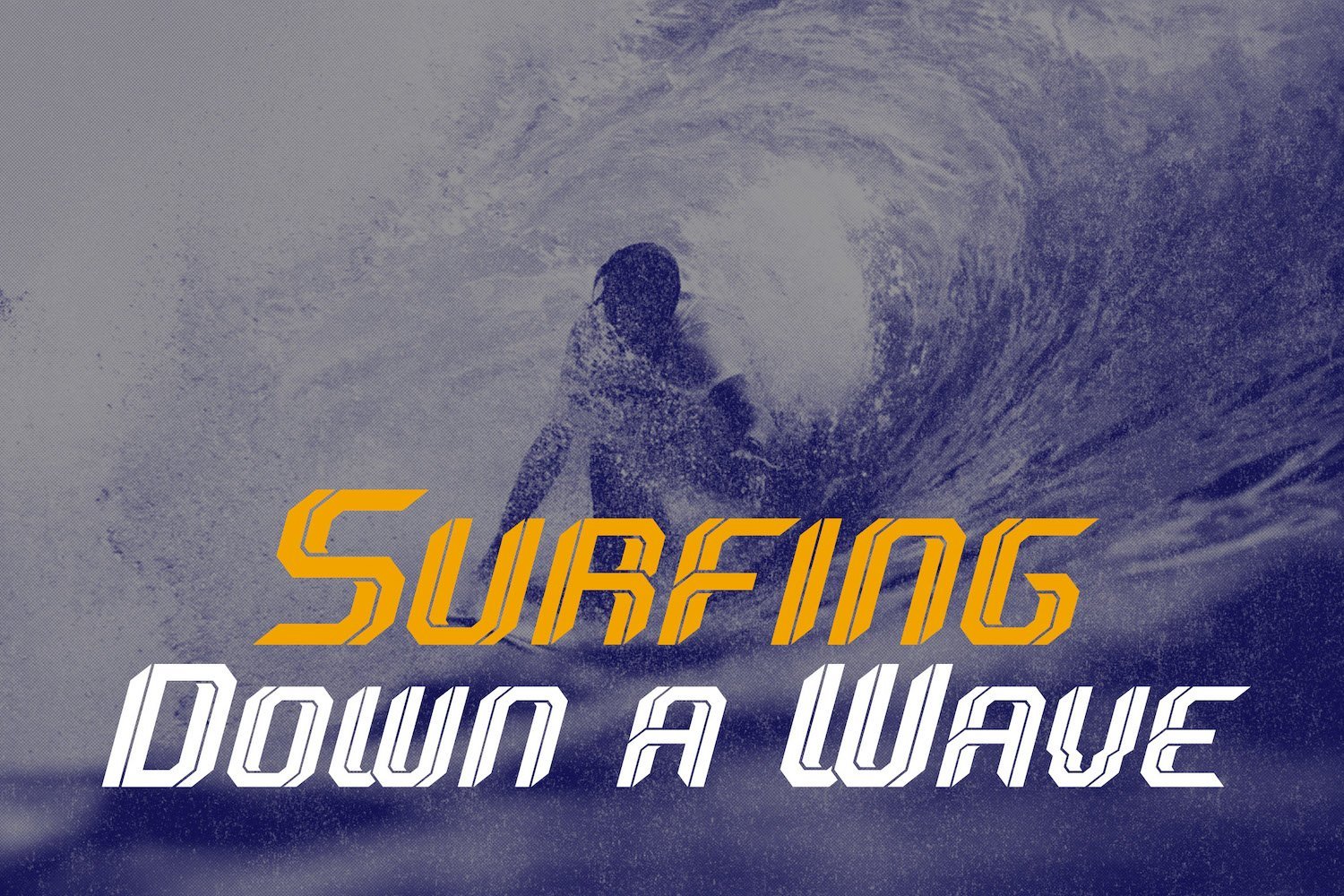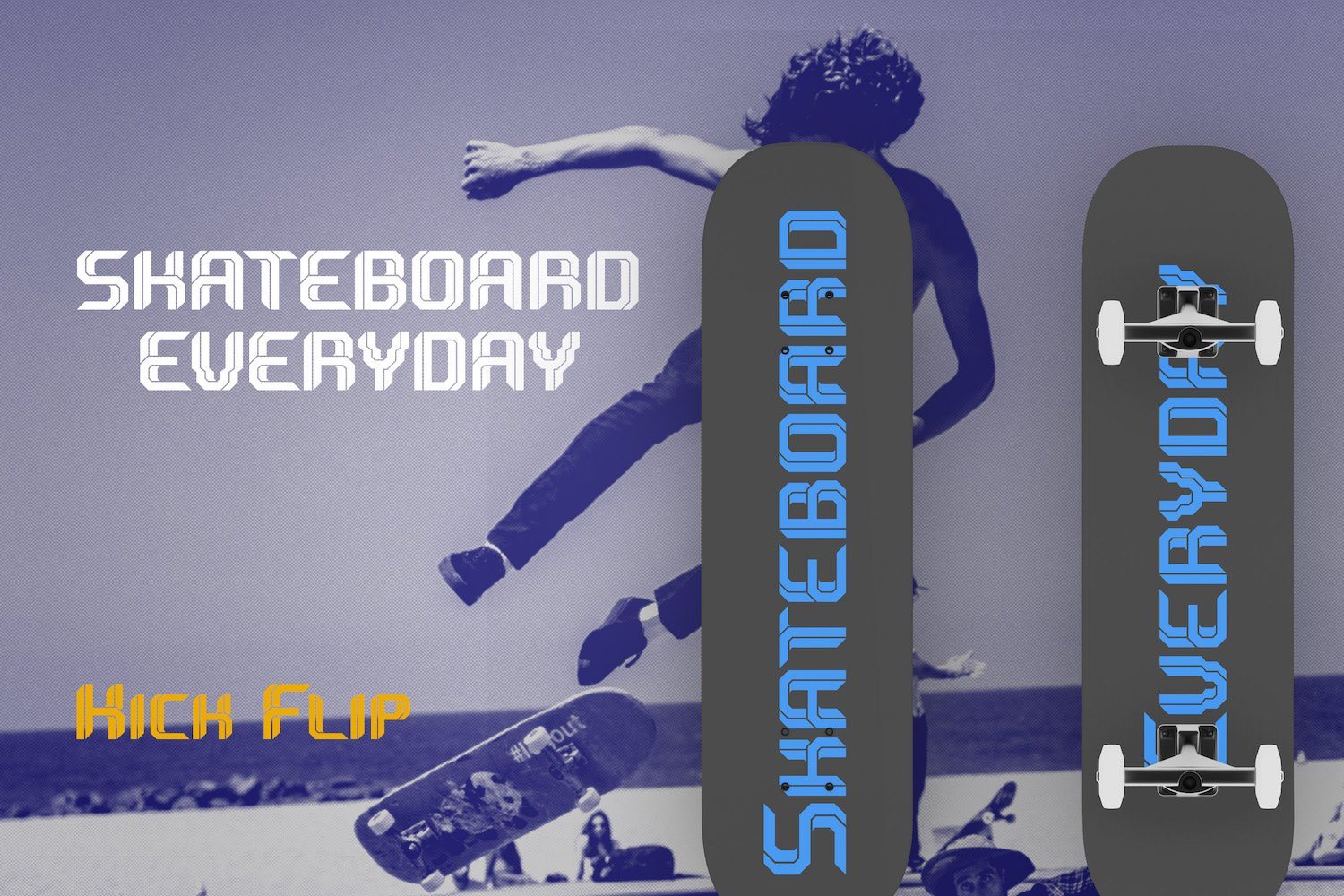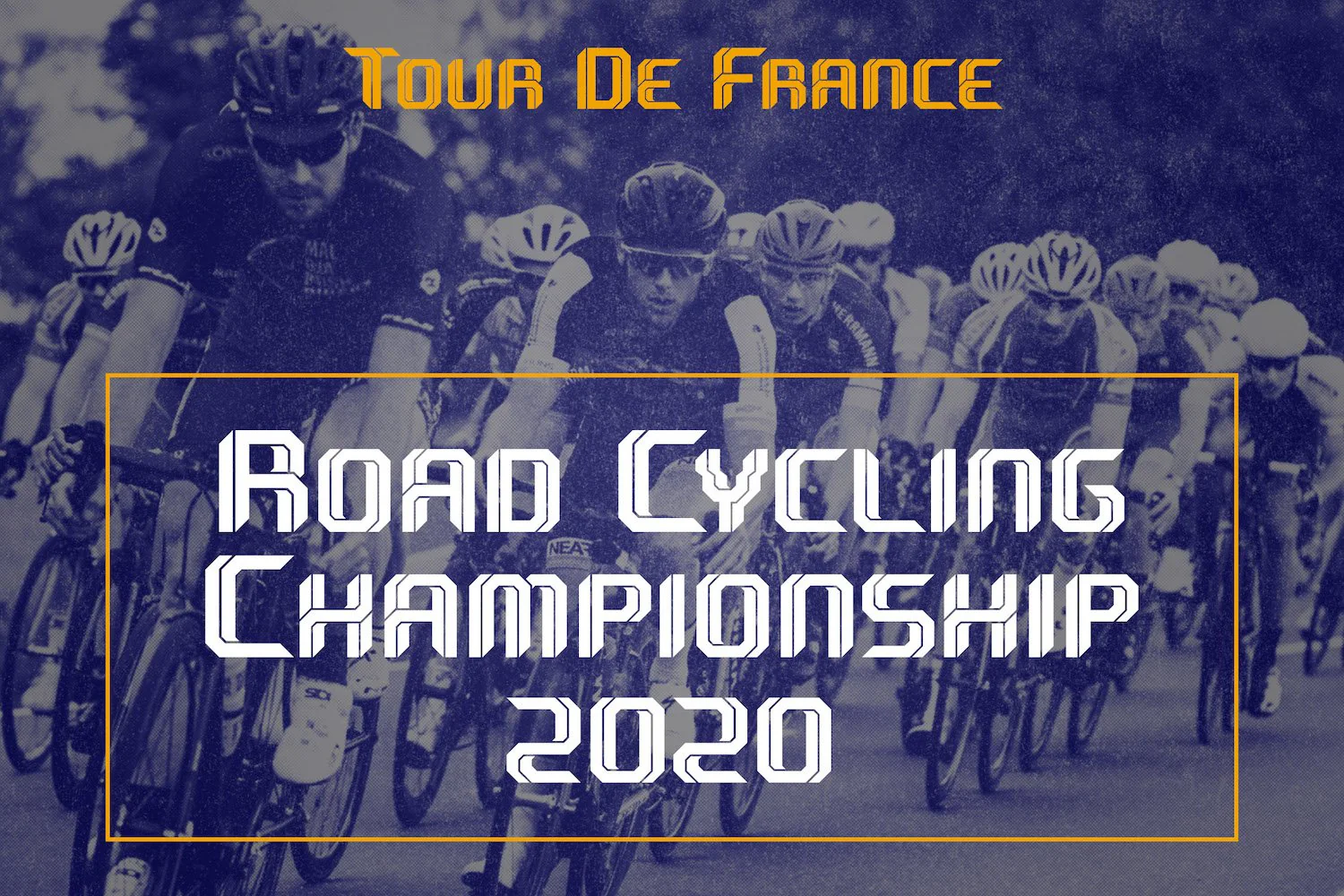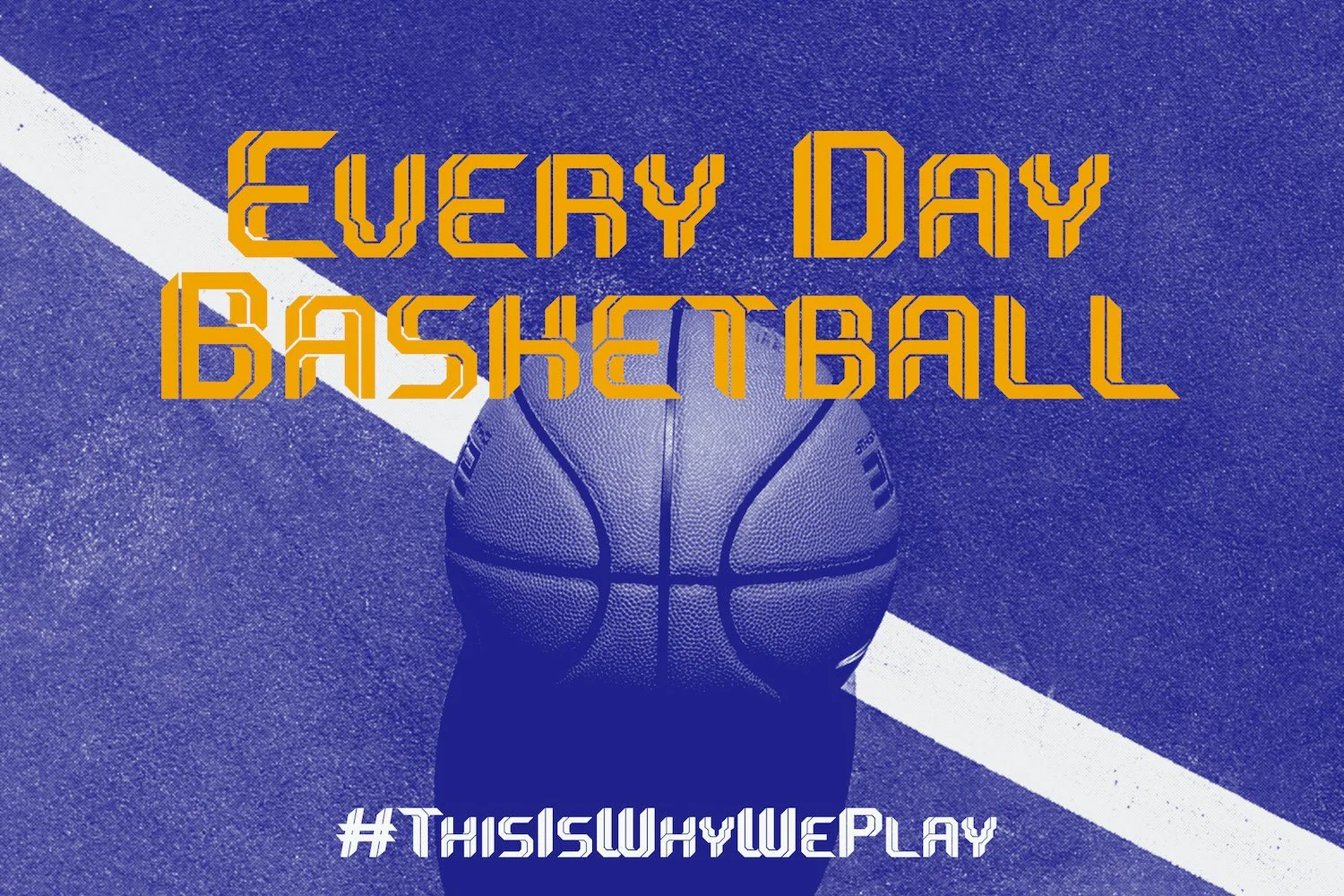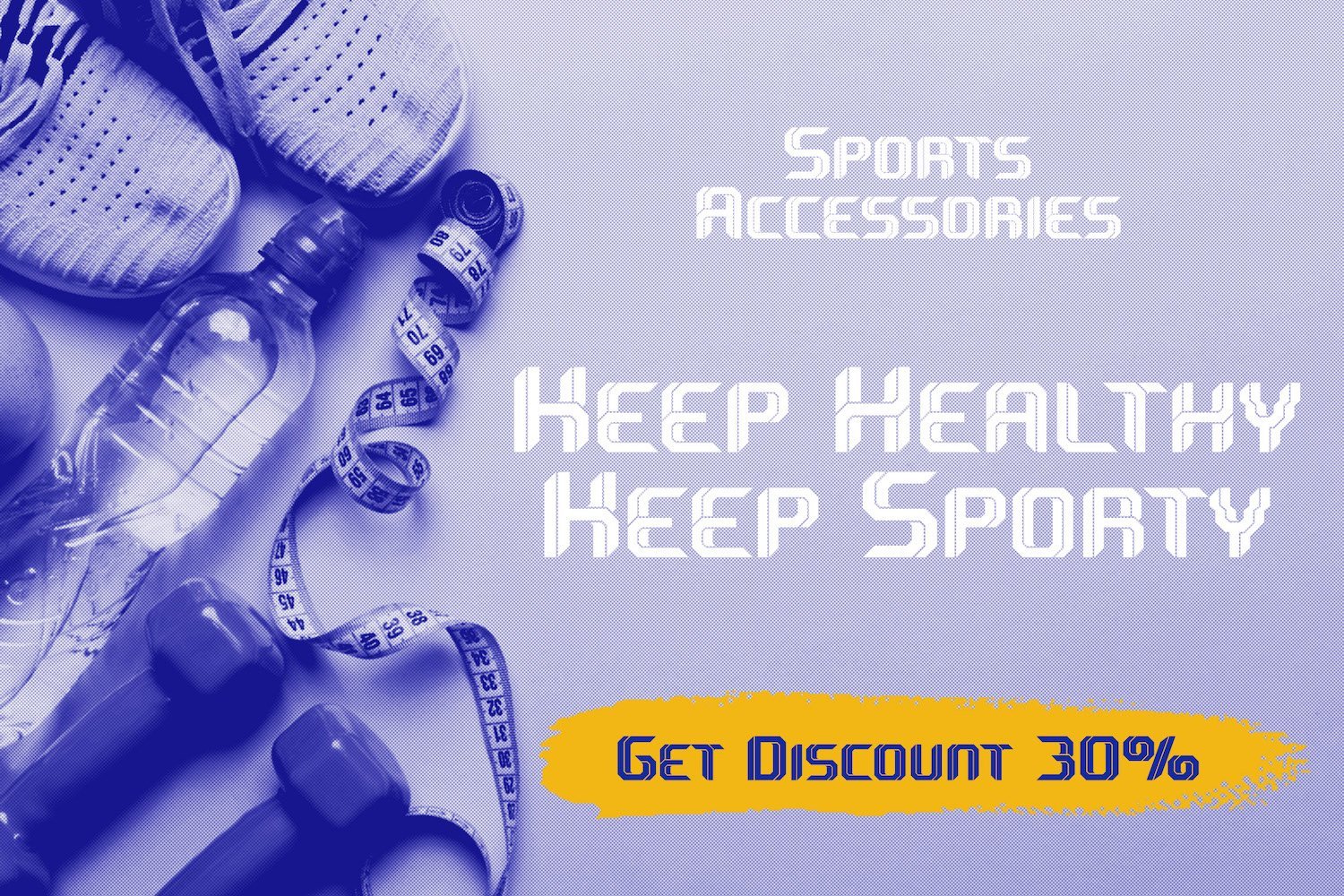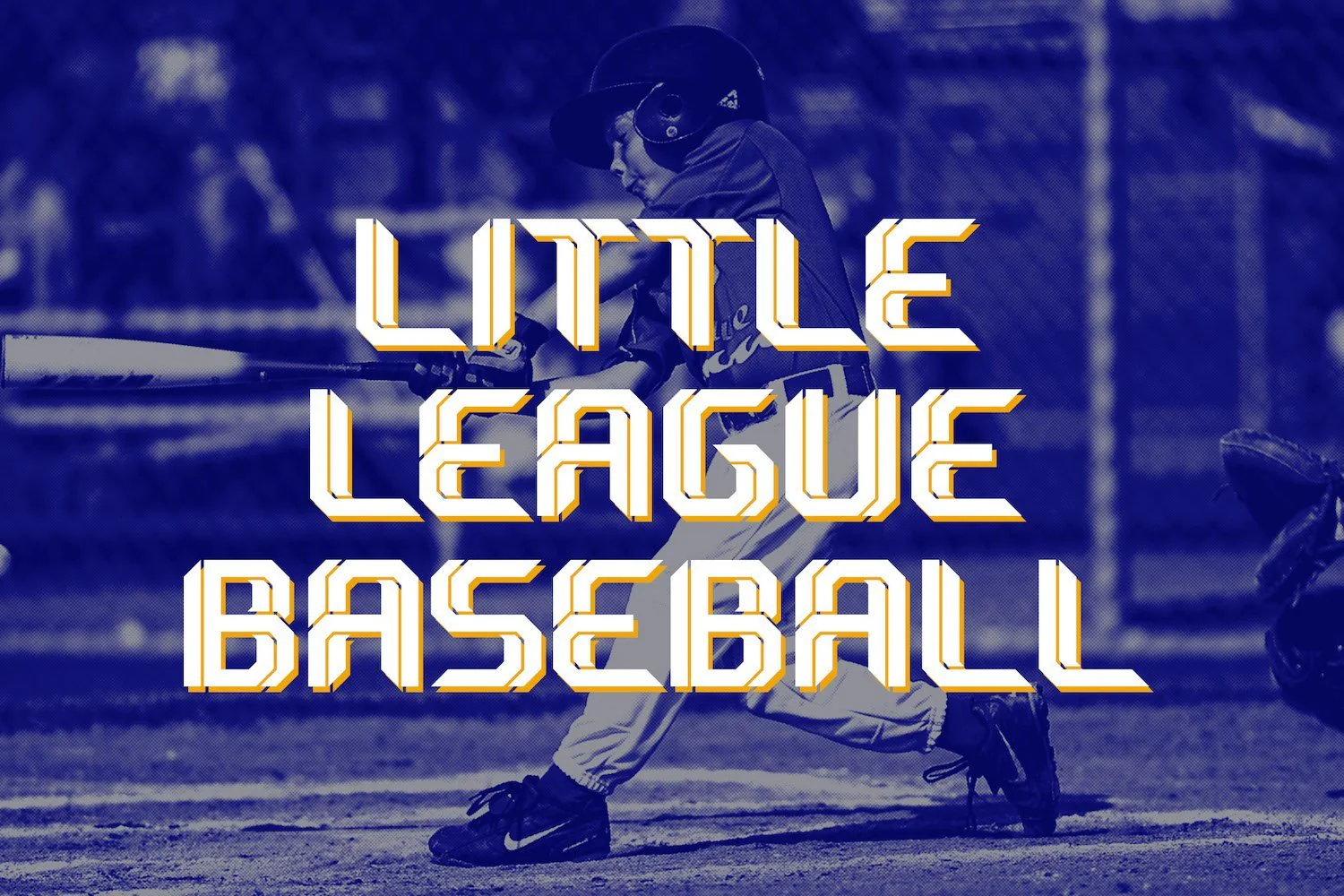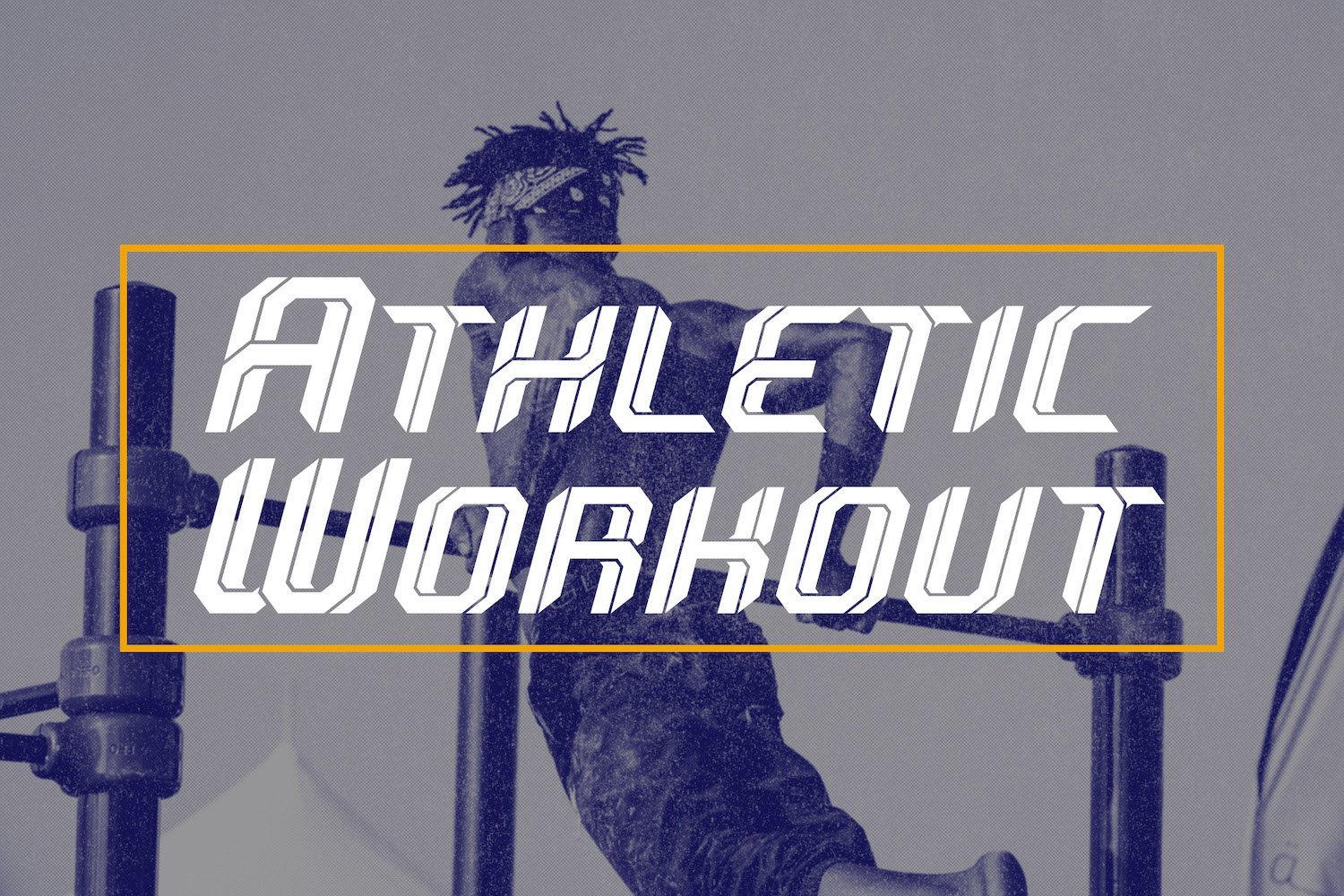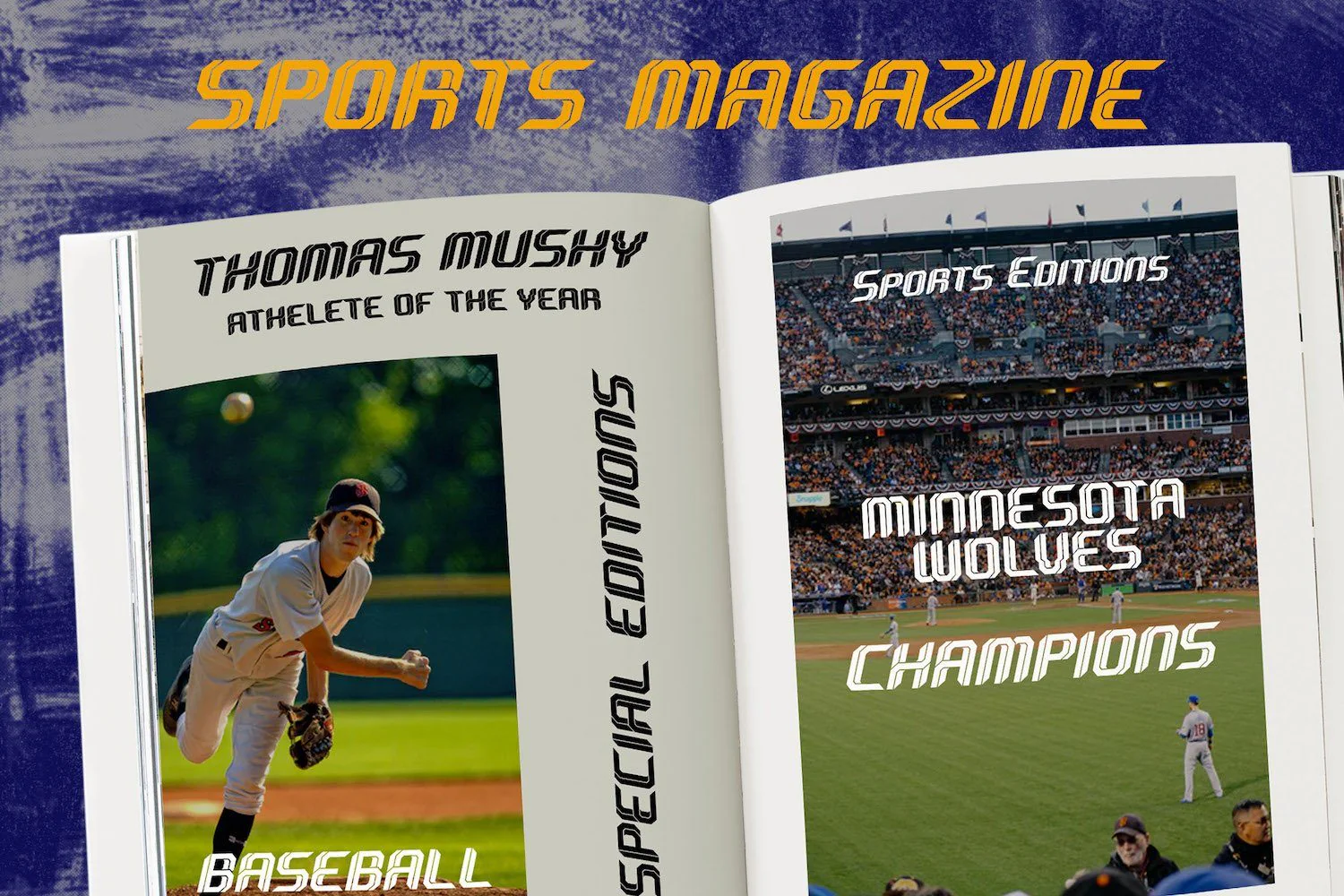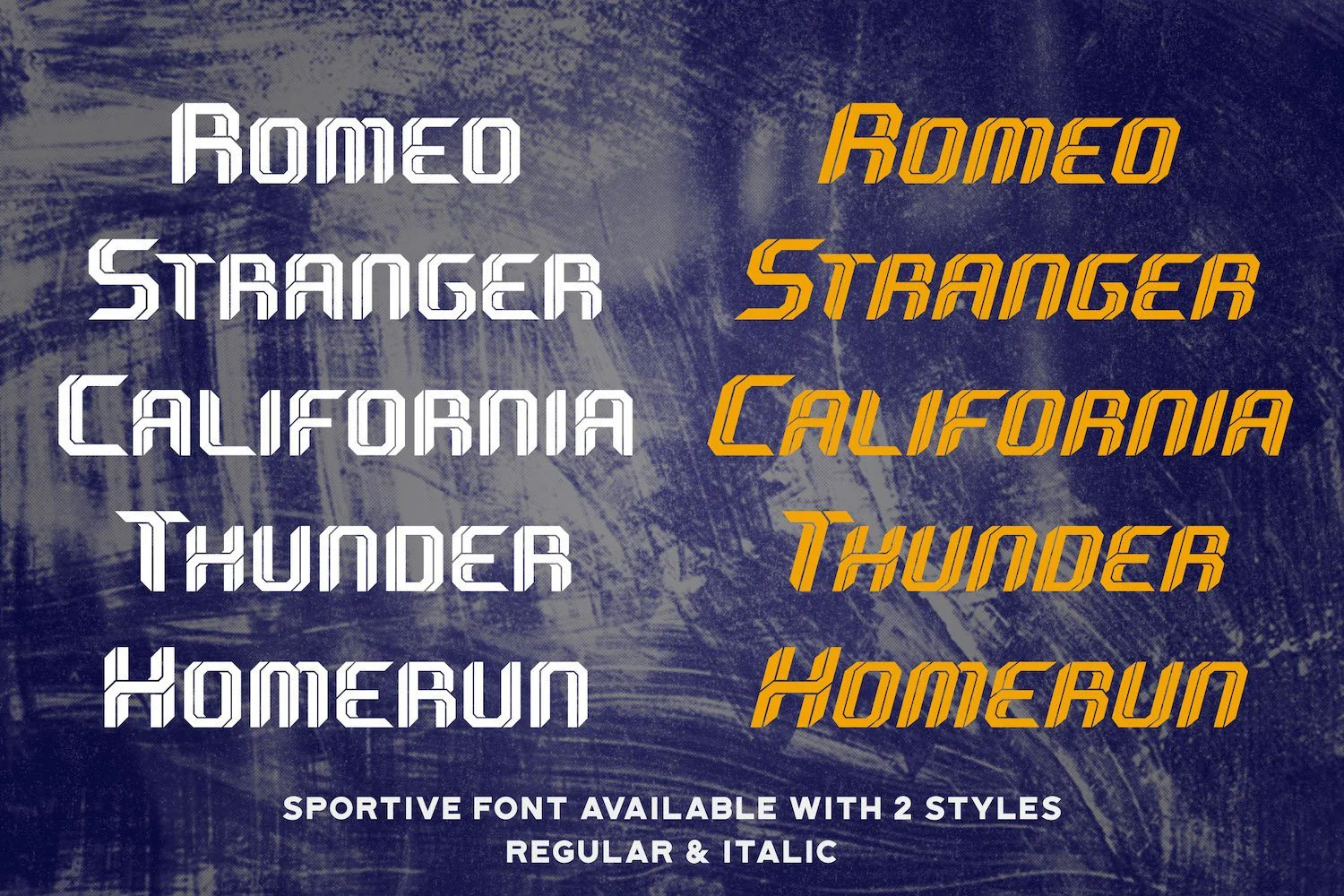
Sportive - Modern Display Font
Introducing Sportive - Modern Display Font
Sportive is a unique and modern display font. This playfully conceptual typeface font will look truly outstanding in a wide range of contexts.